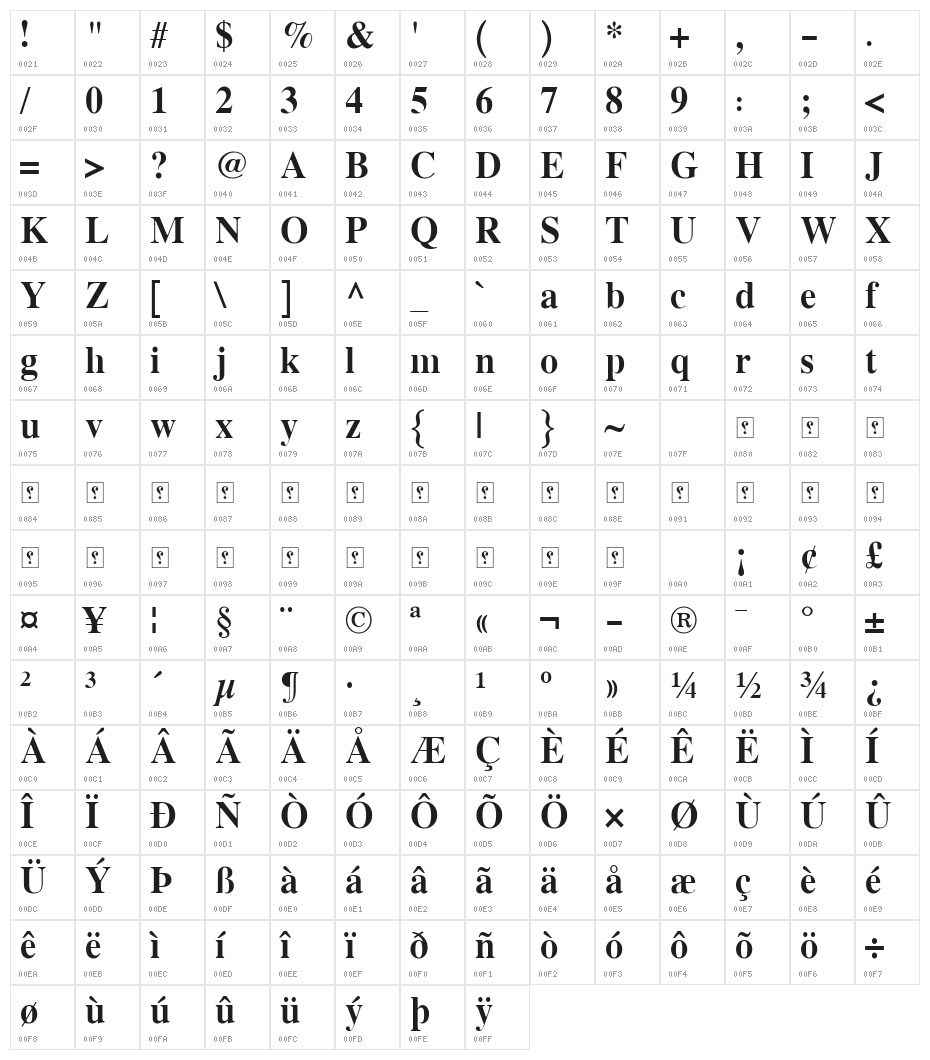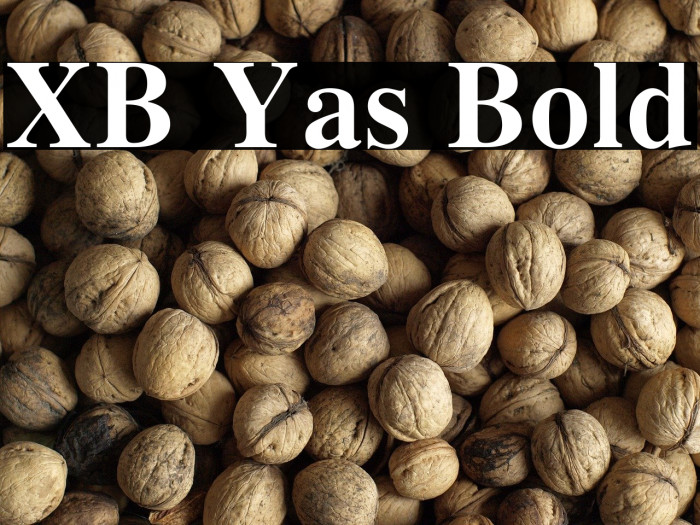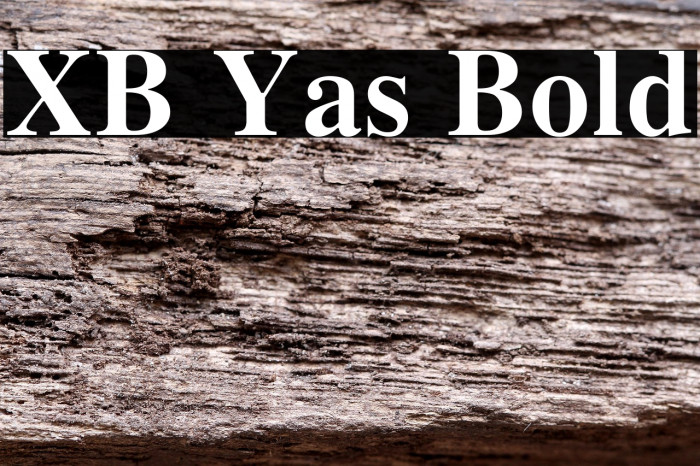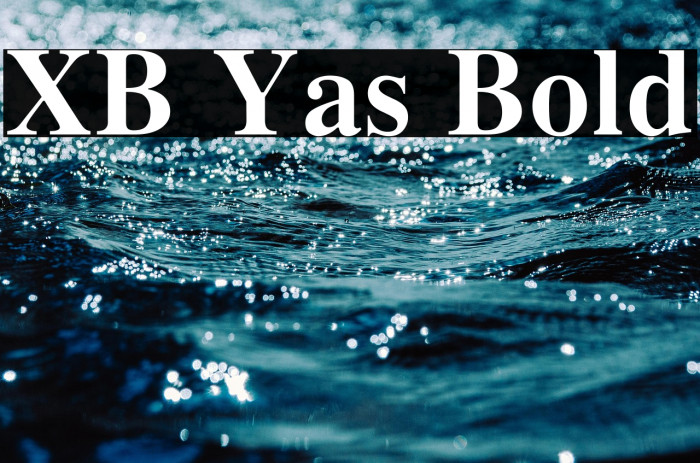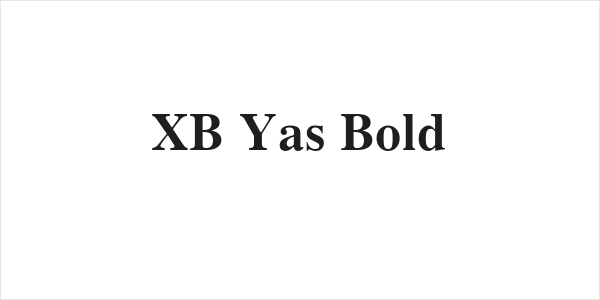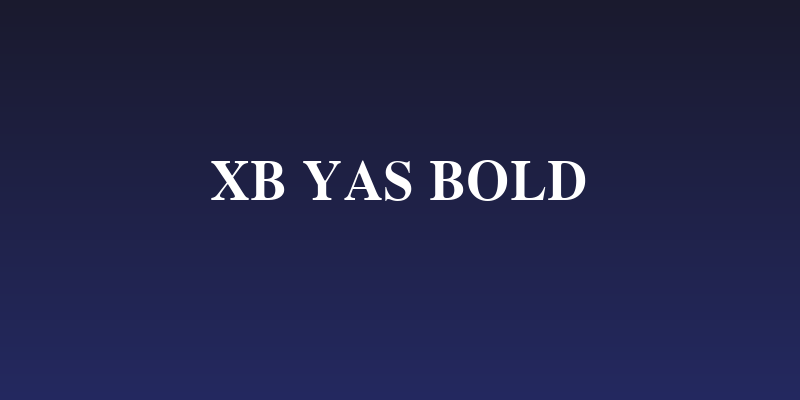
XB Yas Bold Font
XB Yas Bold Description
This font is a bold serif typeface characterized by its strong, authoritative presence. The uppercase letters are well-defined with sharp serifs, giving them a classic and timeless look. The lowercase letters maintain a consistent weight, ensuring readability and balance. Numbers are clear and distinct, making them suitable for both display and body text. Special characters are elegantly designed, maintaining the overall aesthetic of the font. The bold weight adds emphasis and impact, making it ideal for headlines and titles.
| Proposed Projects | Ideal for book covers, editorial headlines, branding materials, and formal invitations. |